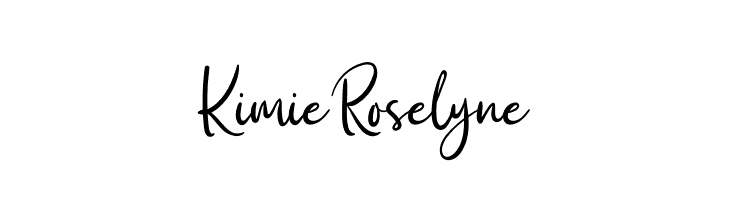
A playful, handwritten script font with fluid, interconnected strokes.
A lively, cursive handwritten font with elegant, flowing connections.
A casual and elegant handwritten font with flowing, interconnected letterforms.
An elegant script font with flowing, interconnected letters and ornate swashes.
A flowing, cursive handwritten font with elegant and expressive characters.